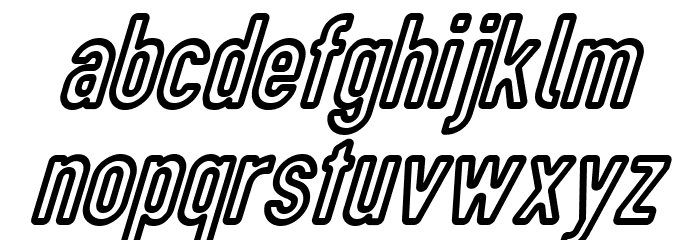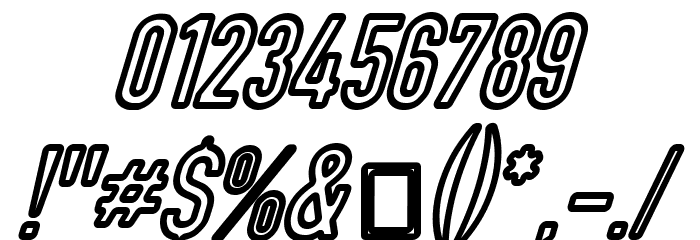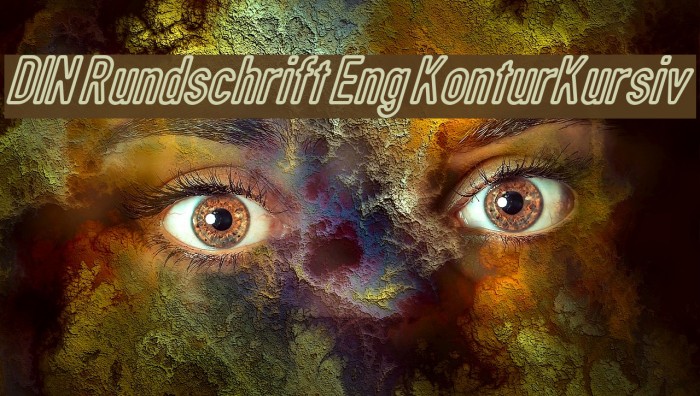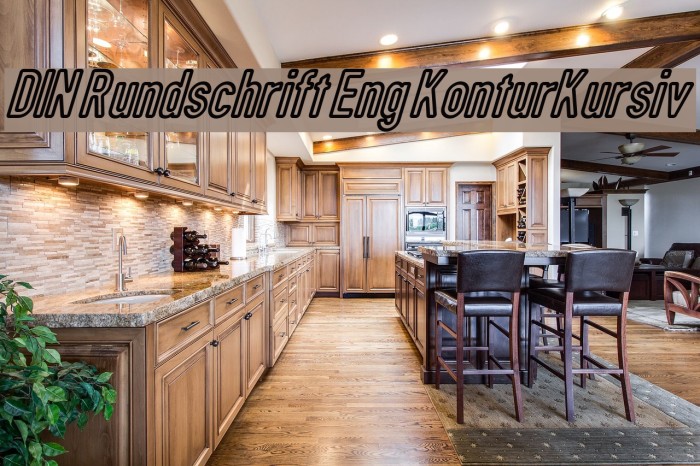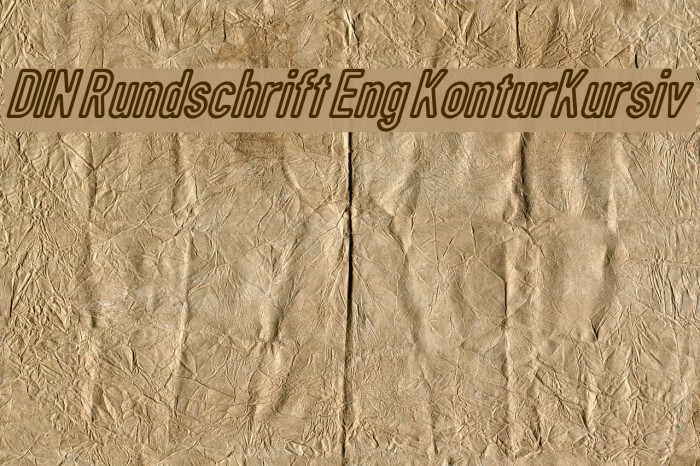
DIN Rundschrift Eng KonturKursiv Font
This font features a modern, geometric design with a distinct outline style. The characters are italicized, giving them a dynamic and forward-leaning appearance. Each letter is crafted with precision, maintaining a consistent stroke width that enhances readability. The uppercase and lowercase letters are well-proportioned, while the numerals are clear and legible. Special characters are included, adding versatility to the font. The overall style is sleek and contemporary, making it suitable for a variety of design applications.
A modern, italicized outline font with geometric precision.
- Proposed Projects: Ideal for branding, signage, posters, and digital media where a contemporary and stylish look is desired.